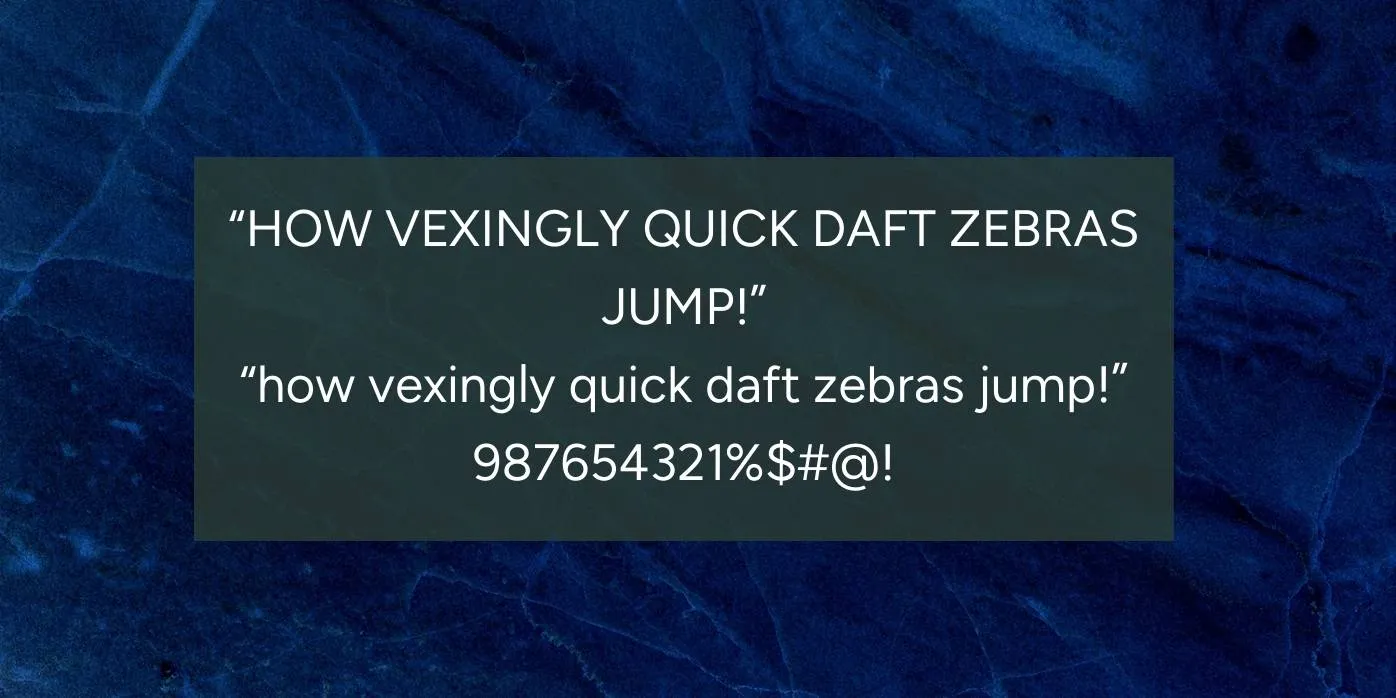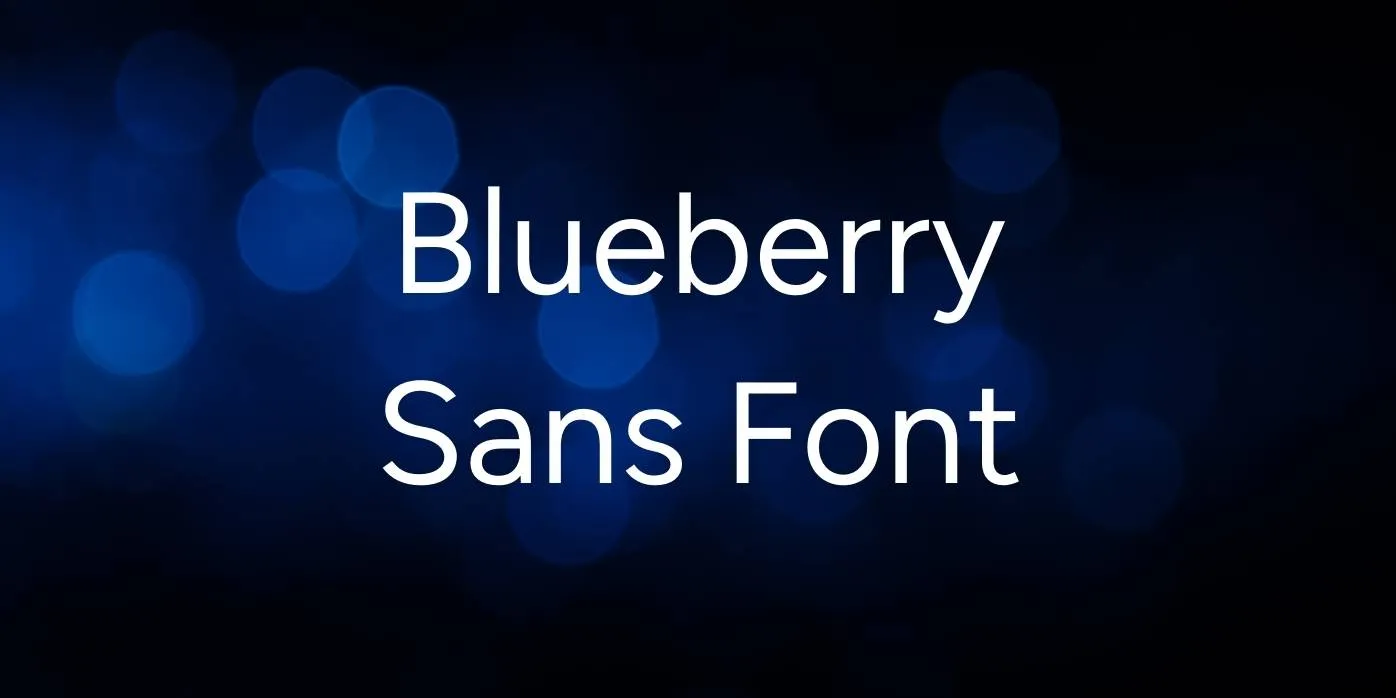
Blueberry Sans Font
Today, we introduce a classy font that is known by the name Blueberry Sans Font. It belongs to the sans serif typeface. This stylish font family was developed by Erik Kennedy. He released it for the first time on 2 June 2013.
The main aim of designing this elegant font is to provide users with a clean and modern look. It supports Latin, Cyrillic, and Greek languages. You can use this amazing font for various purposes like web designing, graphic designing, branding, logos, and many more. It is well specified for the CSS.